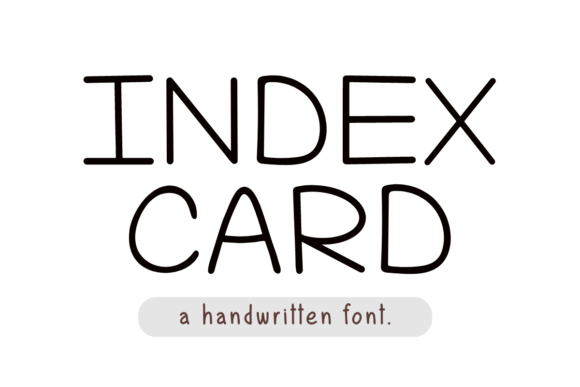
Introducing the magical Index Card Font - a delightful script that sparks creativity and captures the essence of childhood wonder. Designed with love by Khim08Studio, this font family is the perfect choice for those seeking unique and enchanting fonts for kids.
Step into a world of playful handwritten characters, meticulously crafted to bring warmth and charm to your designs. Unleash your imagination and create captivating projects that resonate with the innocent joy of youth. From playful crafts and educational materials to heartfelt greeting cards, Index Card Font is your ultimate companion in creating designs that touch the hearts of children and adults alike.
With its versatile nature, Index Card Font seamlessly adapts to a multitude of applications. Embark on a creative journey and explore its potential in crafting whimsical logos, eye-catching social media graphics, and vibrant website designs. Let your imagination soar and witness how this font transforms ordinary text into extraordinary works of art.
Dive into the realm of storytelling and create enchanting invitations, personalized posters, and heartwarming photo albums. Index Card Font beautifully captures the essence of handwritten notes, adding a personal touch that resonates with audiences of all ages. Let your words dance across the page, carrying messages of love, friendship, and dreams yet to be discovered.
Experience the transformative power of Index Card Font and elevate your designs to new heights. Its charming personality and versatility make it an indispensable tool for educators, crafters, and designers seeking to engage and inspire young minds. Embrace the magic of Index Card Font and let your creativity flourish.